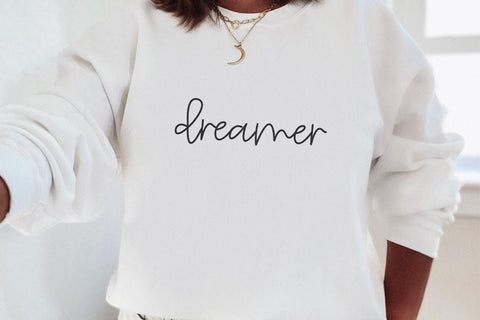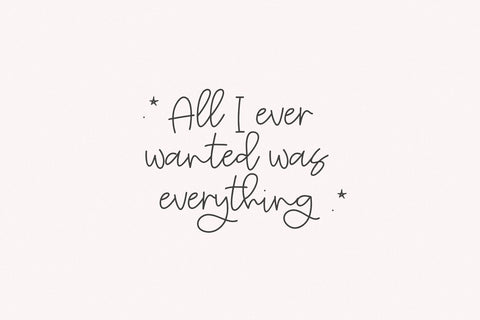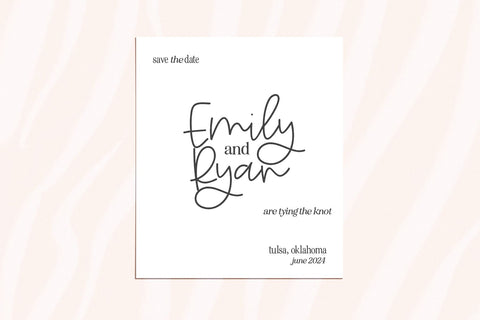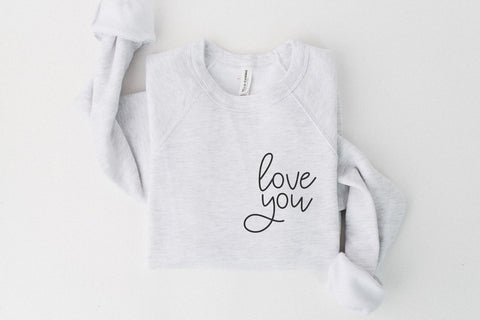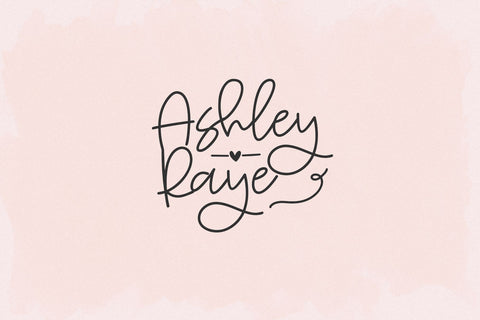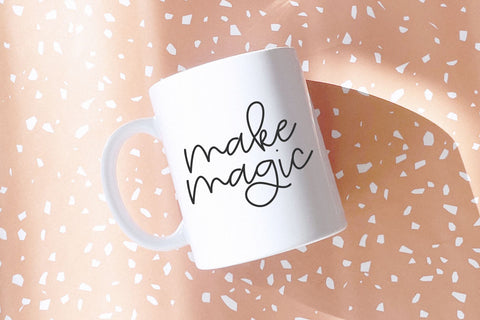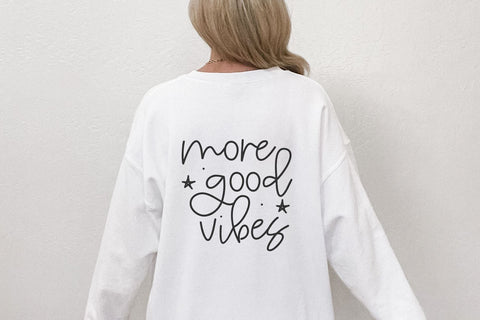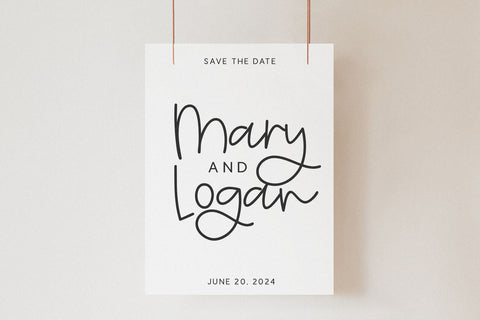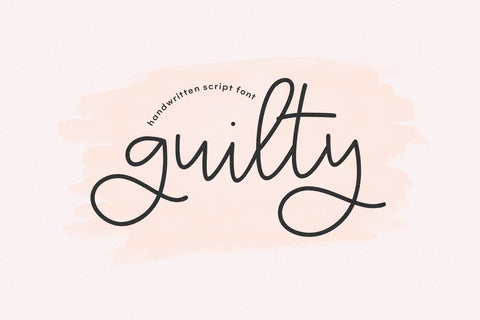
Guilty - Handwritten Script Font
Guilty is a handwritten script font.
This font is perfect for your cricut projects, svg files, logos, quotes, stickers, shirts, mugs and more!